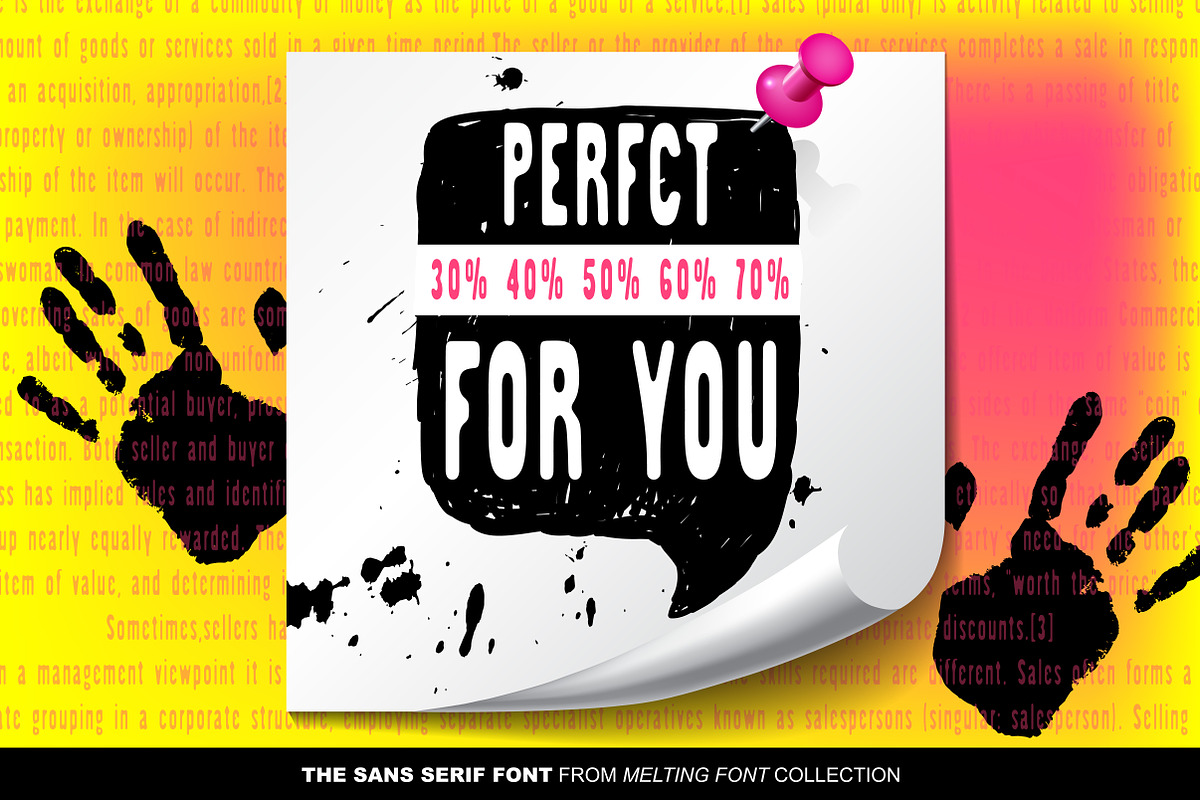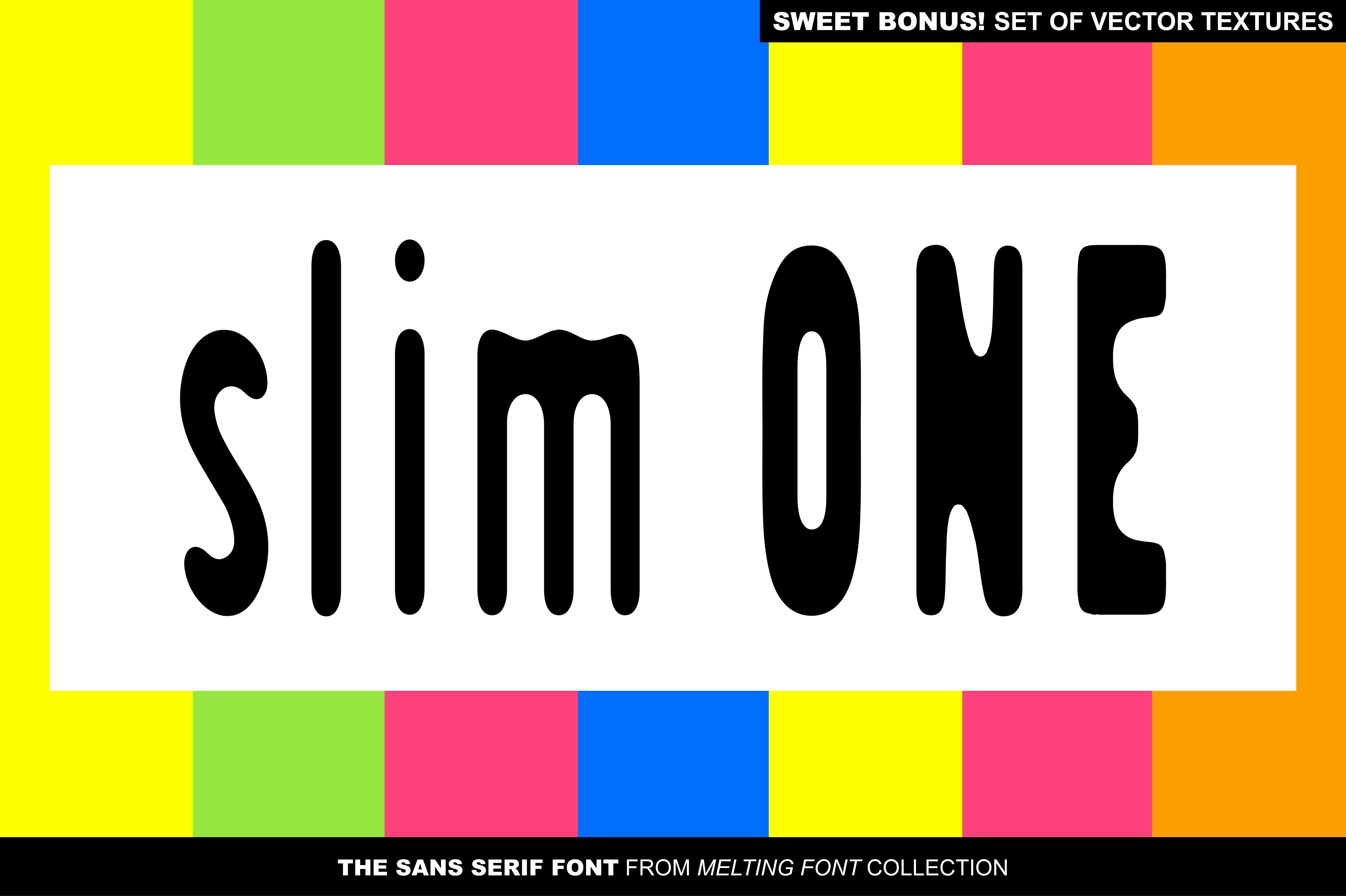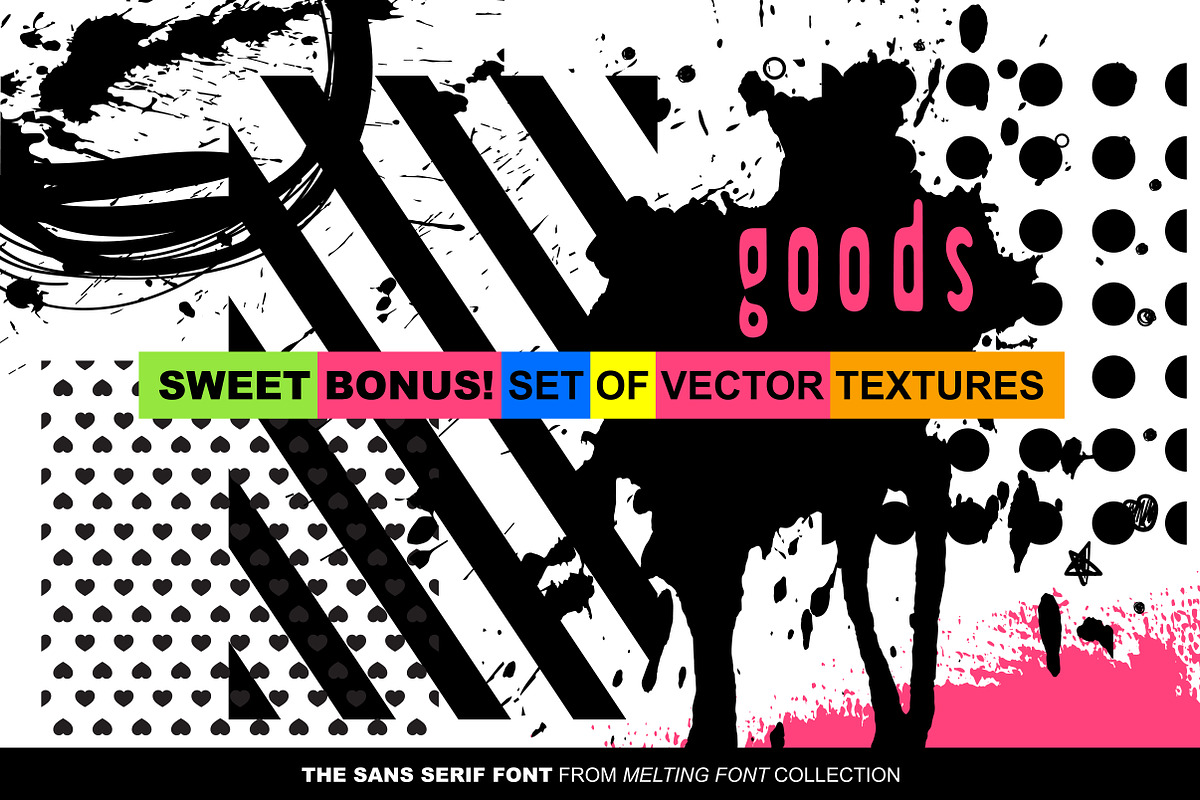
SlimOne Normal Sans Serif Font
We, GalaStudio (Lilia & Galina) represent the font SlimOne – the third from our new MELTING FONTS collection.
On typing in Google the words “to slim” you can see immediately that the most in demand on the subject is: “to slim in one month”, “to slim tips”, “to slim – what should I do”. We are obsessed with the idea to lose weight. It means now to become more healthy, more fashionable, self-confident and successful.
Font as an important element of environmental design reflects contemporary reality. We want to respond to this challenge in our font design. Thus, in our GalaStudio the MELTING FONTS series was born. The fonts of this series: Escapism, CandyMelt, SlimOne have a concept of disappearing graphic elements. The letters of these fonts look like melting, dissolving into the space.